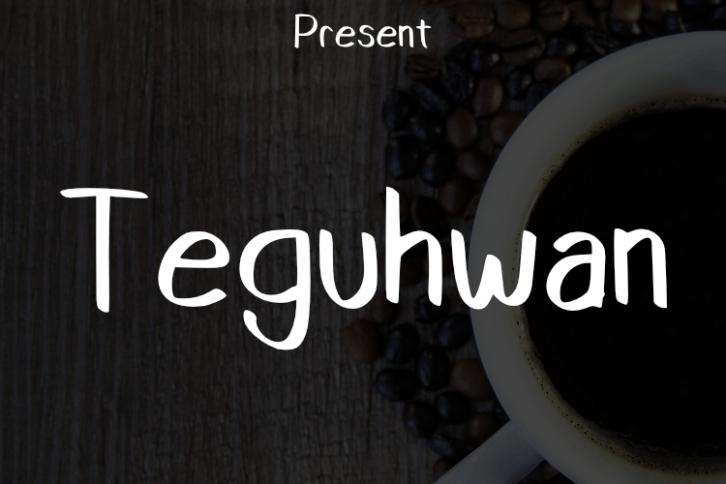
Teguhwan is a handwritten typeface that has a simple style & modern look.
This typeface is perfect for an elegant & luxurious logo, book or movie
design titles, fashion brands, magazines, clothing, fonts, quotes, and more.